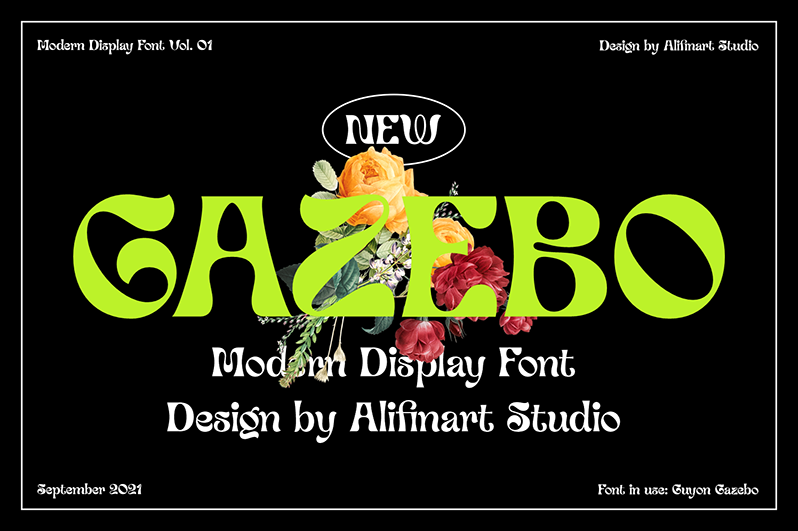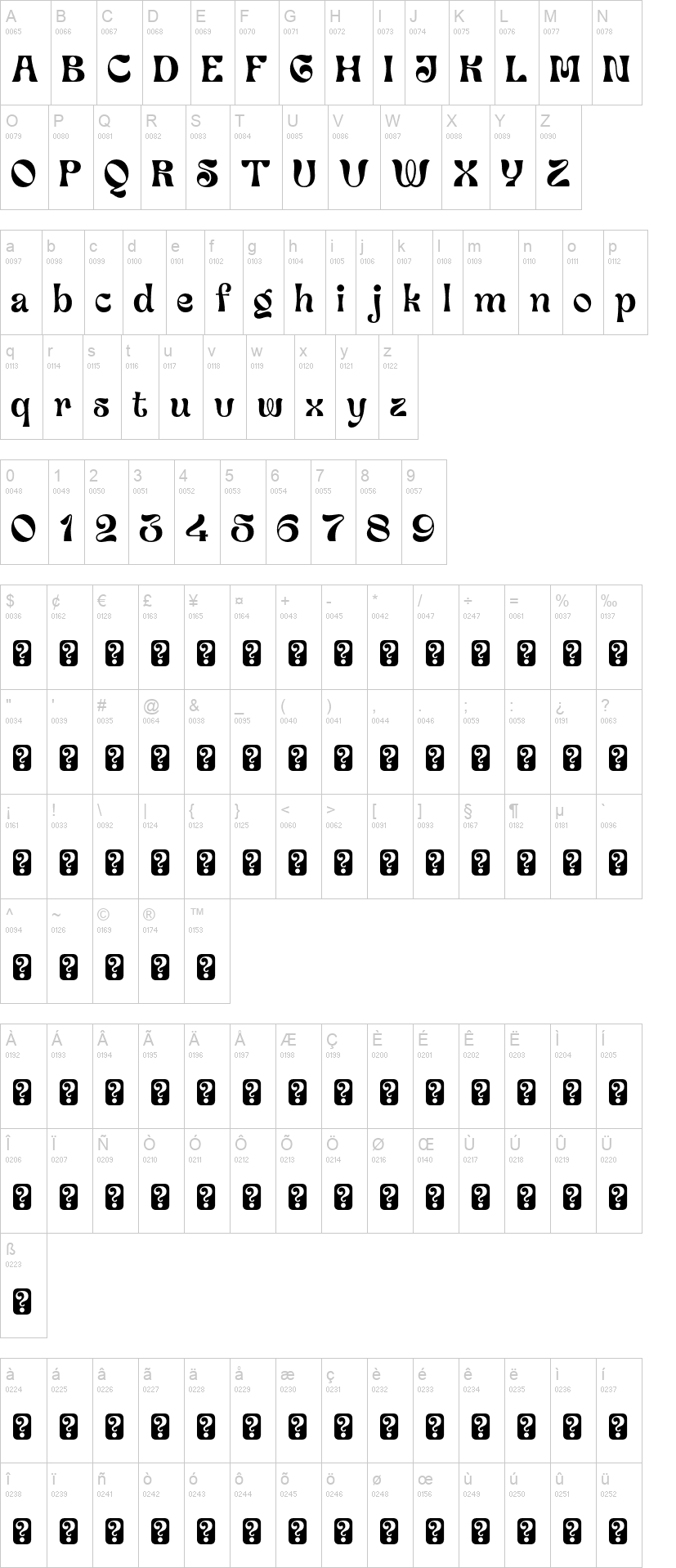
Guyon Gazebo is a luxurious display font has a unique style makes it great for creating bold headlines, branding, promotional materials or simply as a stylish text overlay to any background image. This font comes with high contrast strokes and has a slender stem and pointed terminals.
The Guyon Gazebo font has many standard and discretionary ligatures that will make your designs more attractive.